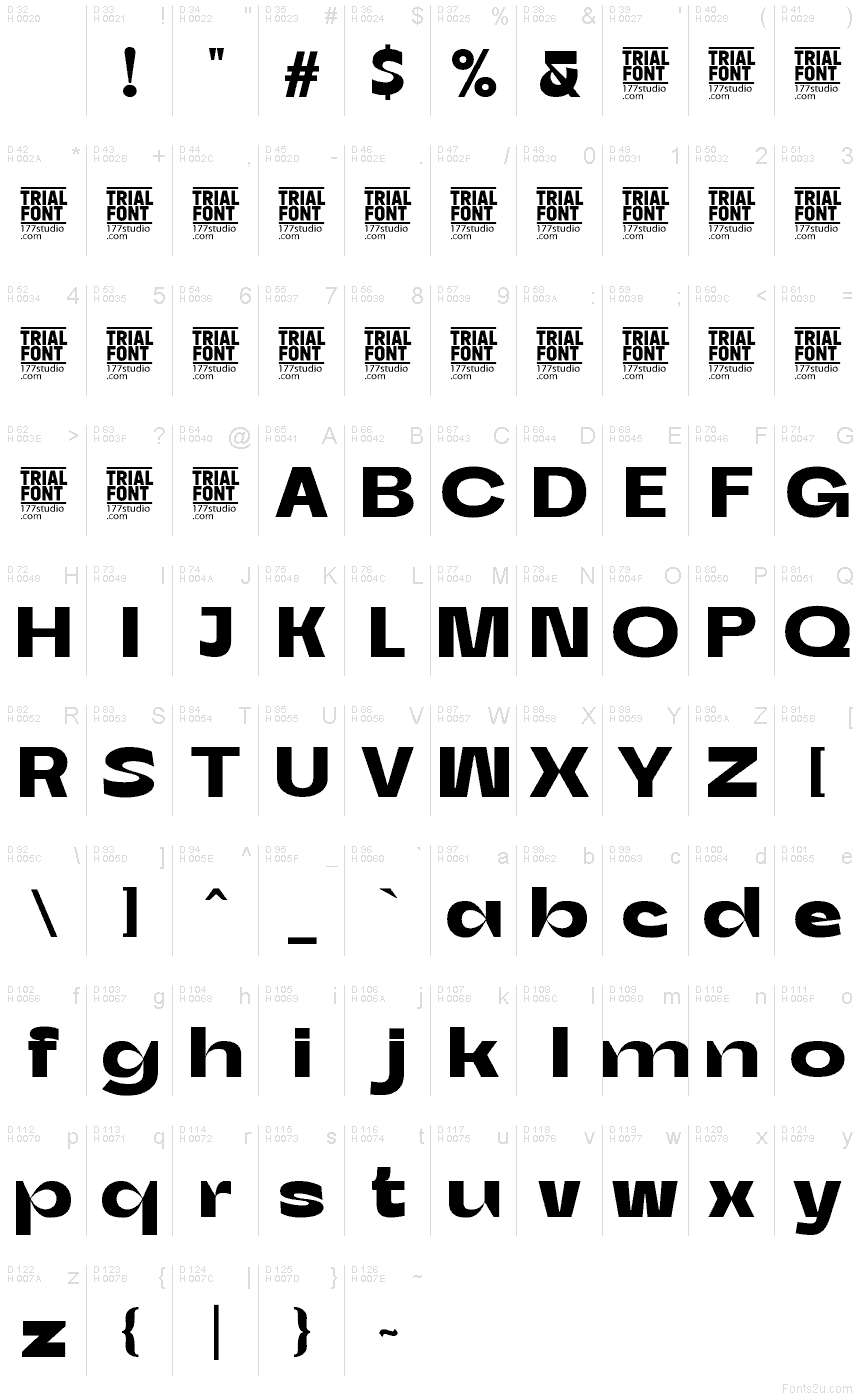
Salvador Abstract Demo Bold
Salvador Abstract Bold font by 177Studio is a modern display font constructed with elegant curves and geometric shapes. The free sans serif font has a bold weight and an expanded width that contribute to its overall beauty. Other characteristics to watch for include the abstract art deco feel, vibes of a constructed structure, and distinct contrasts.
Use this artistic typeface in branding, packaging design, digital ads, print publications posters, magazine covers, or business cards. Salvador Abstract is ideal for music album covers, tattoos, web elements UI & UX design occasions where it has the chance to stand out.